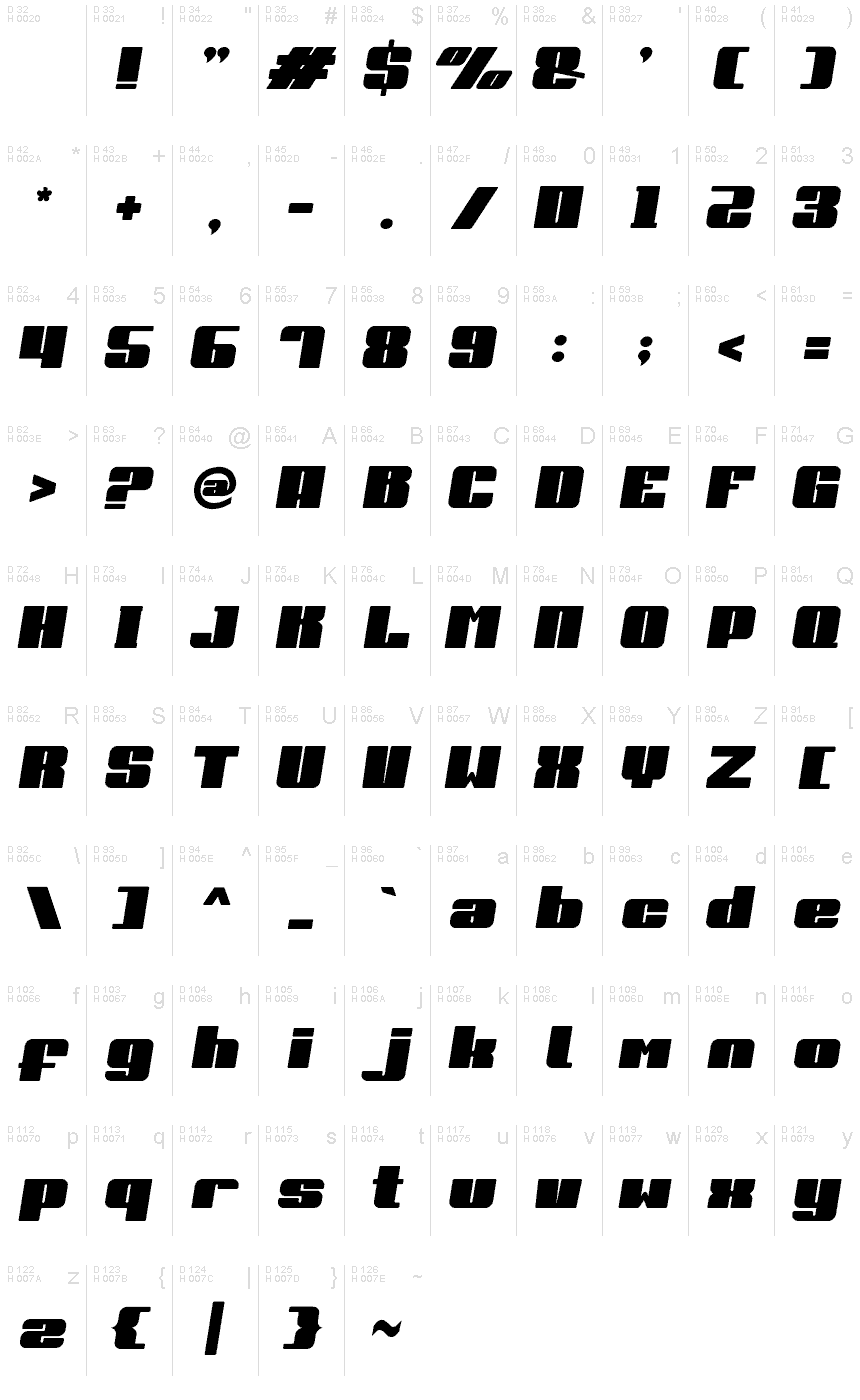
Sport Master Italic
Sport Master Italic font was designed by Qr Design and is a bold, expanded sans serif typeface with a lively sporty aesthetic. Evoking echoes of mid-20th century athletic branding, this display font stands out with its angular design and retro-inspired 1970s influence. The energetic feel makes it exceptional for projects requiring a powerful visual impact.
This free italicized font can elevate designs in sports branding, retro-themed event promotions, vintage athletic wear advertisements, logos, posters, websites, book covers and more. Its versatility allows it to adapt seamlessly to various branding projects within different contexts.